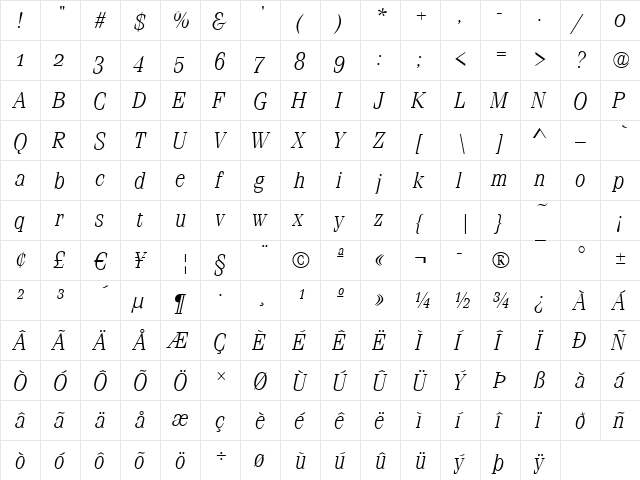
Ferrara-Osf-Light Italic
Design Context for Ferrara-Osf-Light Typeface
Ferrara-Osf-Light is a composed and adaptable typeface that performs quietly and consistently across a wide range of design contexts. The slanted form adds forward momentum and visual energy. Its slender proportions lend an understated elegance to any composition.
Pro Tip: Use Ferrara-Osf-Light for emphasis, pull quotes, and subheadings where its slanted energy can add rhythm to the layout.